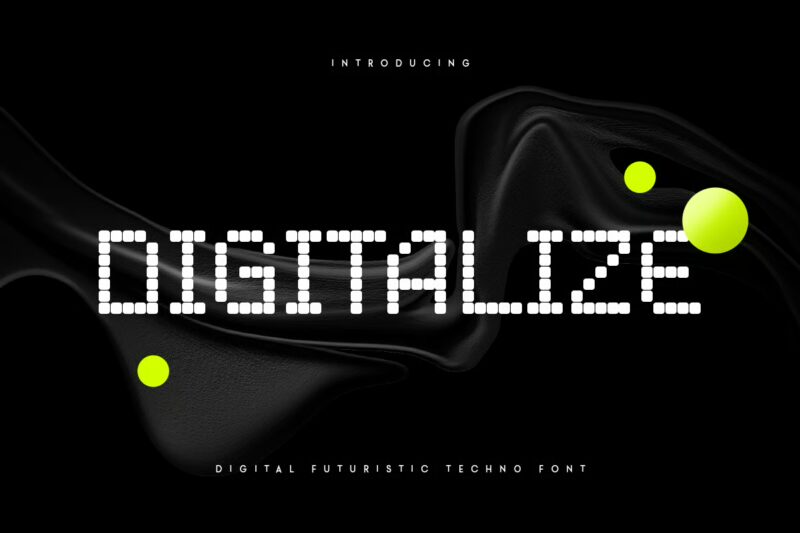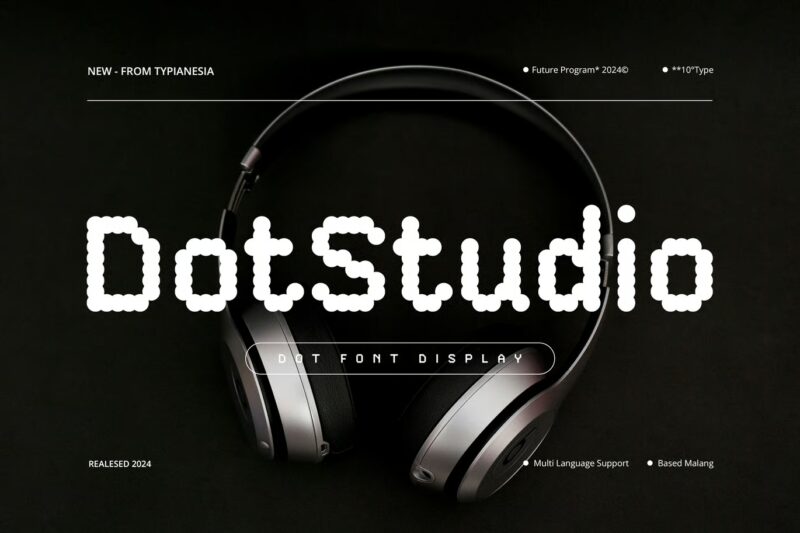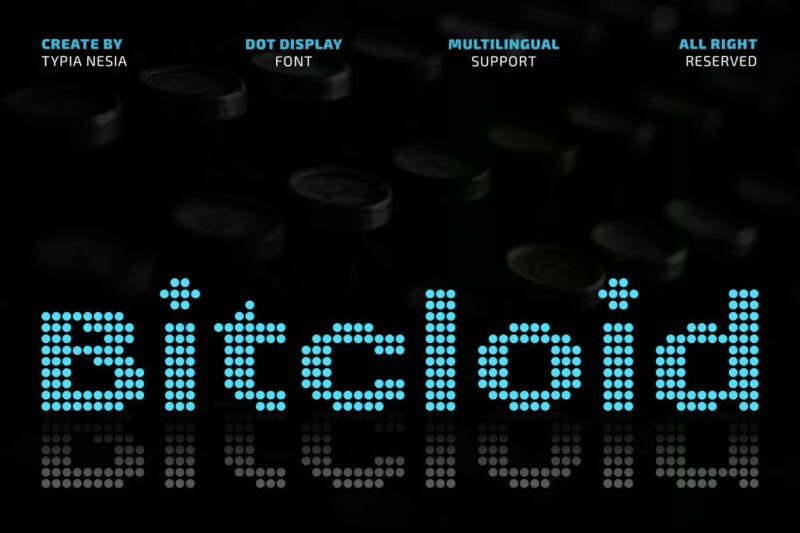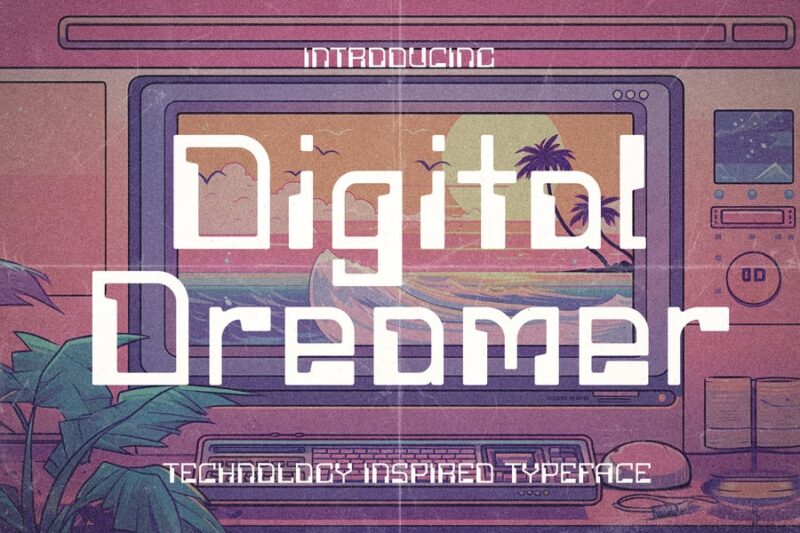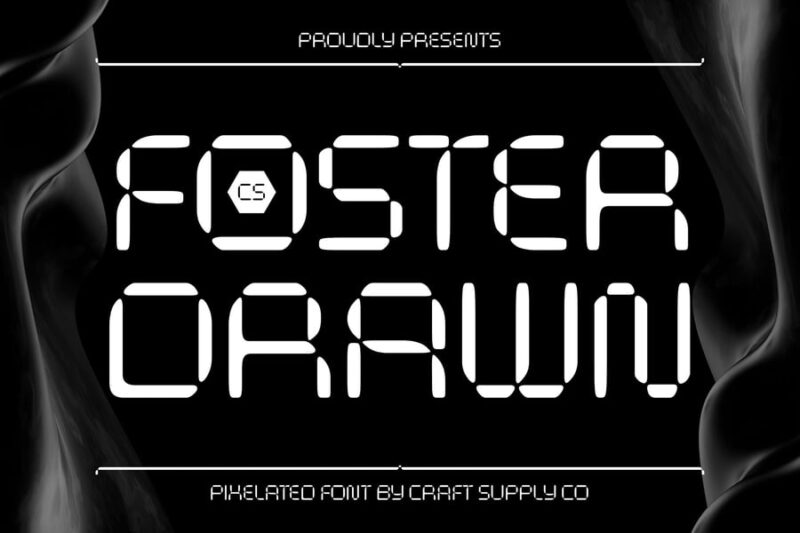
Time is funny that way. We spend so much energy obsessing over what the clock says, yet almost never stop to think about how it says it. Whether it’s the glowing digits on a bedside alarm, the ornate numerals on a grandfather clock, or the bold countdown on a sports broadcast, clock fonts are quietly doing some of the most emotionally loaded typographic work in the world of design.
Think about it: a font on a clock doesn’t just display information — it sets a mood, triggers a memory, and tells you everything about the world that clock belongs to. Sleek and digital? You’re in a sci-fi thriller. Vintage and serif? You’re in a Victorian drawing room. Chunky and distorted? Welcome to a retro arcade.
So set your stopwatch. Let’s get into it.
The Best Clock Fonts in 2026
Not all clock fonts are created equal. Some nail the digital LED look. Others go full gothic grandfather clock. And a handful manage to feel genuinely timeless — no pun intended. Here are our top picks:
Tracker Clock – Precise Quartz Stopwatch Y2k Pixel
This Y2K-inspired pixel font perfectly captures the essence of digital timepieces and stopwatch displays. Tracker Clock delivers precise, geometric letterforms that evoke the nostalgic charm of early 2000s technology. It’s an ideal choice for projects requiring authentic clock fonts that blend retro digital aesthetics with modern design sensibilities.
Speed Px Watch
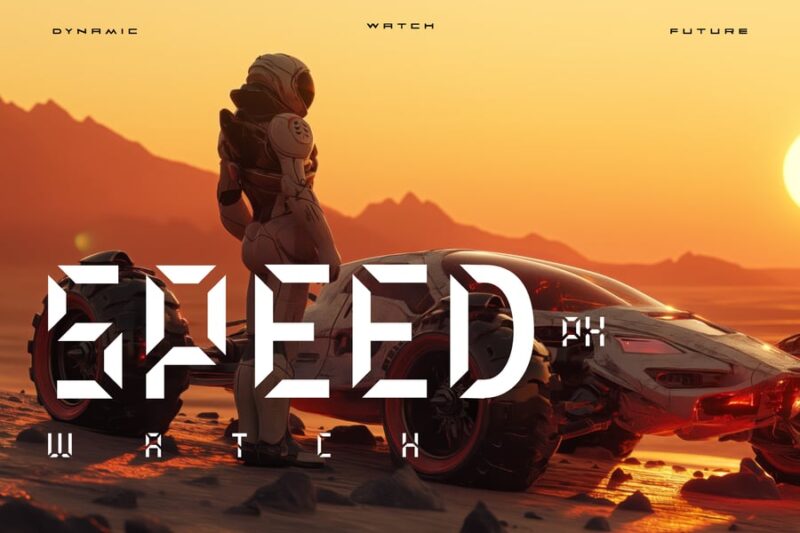
Speed Px Watch delivers the crisp, pixelated appearance of digital watch displays with remarkable accuracy. This clock font specializes in creating that distinctive electronic timepiece aesthetic that’s perfect for gaming interfaces and tech-themed designs. The font’s clean pixel construction ensures excellent legibility across various digital applications.
Digitron Font
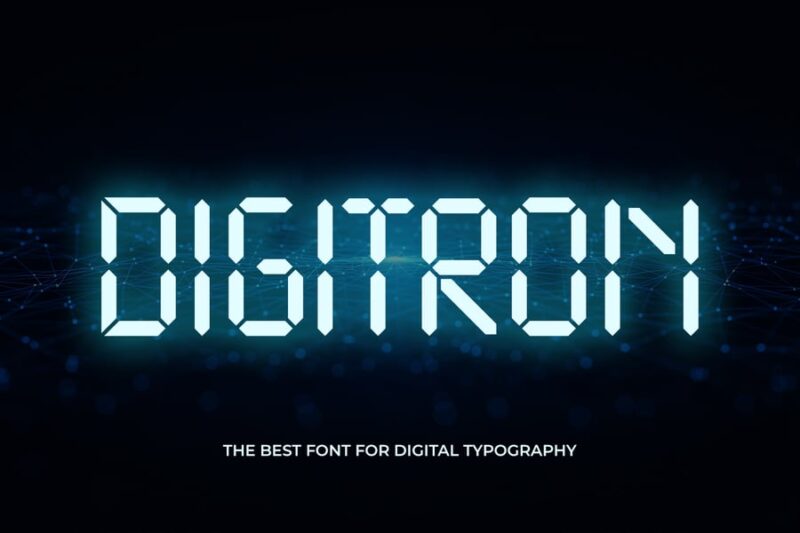
Digitron Font embodies the classic seven-segment LED display style commonly found in digital clocks and electronic devices. This versatile clock font brings authentic digital display characteristics to your designs with its bold, segmented letterforms. Perfect for projects that need to convey precision, technology, or time-related themes.
Date Stamp
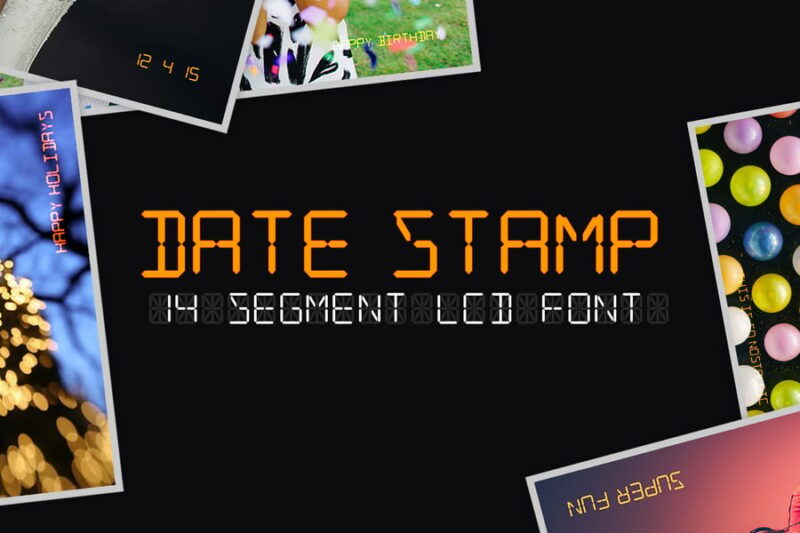
Date Stamp captures the utilitarian aesthetic of time-stamping devices and administrative marking systems. While not exclusively designed as clock fonts, its structured letterforms work excellently for time-related applications and document dating. The font’s industrial character makes it perfect for designs requiring an official, timestamp-like appearance.
Clock Forge – Digital Racing Speed Meter Pixel
Clock Forge combines the precision of digital timepieces with high-speed racing aesthetics in a dynamic pixel format. This specialized font among clock fonts excels in automotive and gaming applications where speed and time measurement are crucial. The racing-inspired design elements make it perfect for dashboard displays, speedometers, and performance-oriented interfaces.
Segmenta – Futuristic Seven Segment Font + Webfont
Segmenta offers a futuristic take on the classic seven-segment display format traditionally used in digital clocks and electronic devices. This modern interpretation of clock fonts brings enhanced readability and contemporary styling to the timeless LED aesthetic. The included webfont version ensures seamless integration across digital platforms and responsive designs.
Tiny Timmy
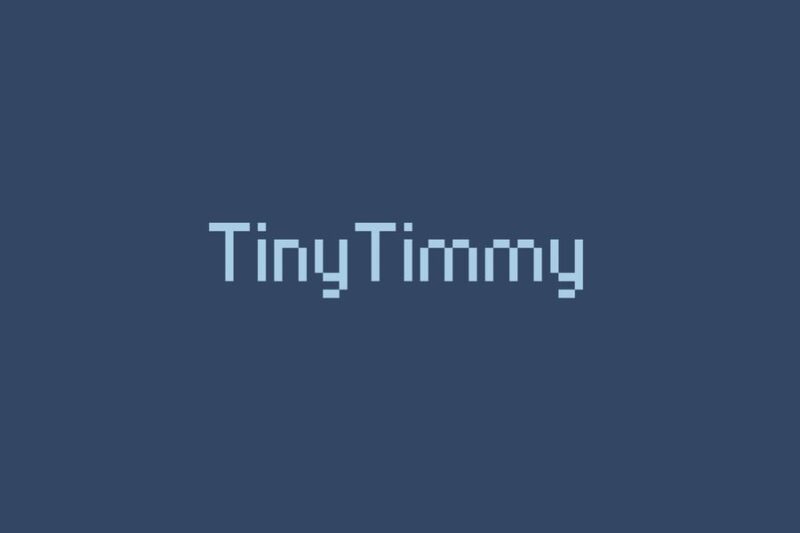
Tiny Timmy delivers compact, pixel-perfect letterforms that excel in space-constrained digital environments like watch faces and small displays. This efficient clock font maintains excellent legibility even at minimal sizes, making it ideal for wearable technology and compact interface design. Its playful name belies its professional utility in time-sensitive applications.
Cyber Digital LED-Inspired Font
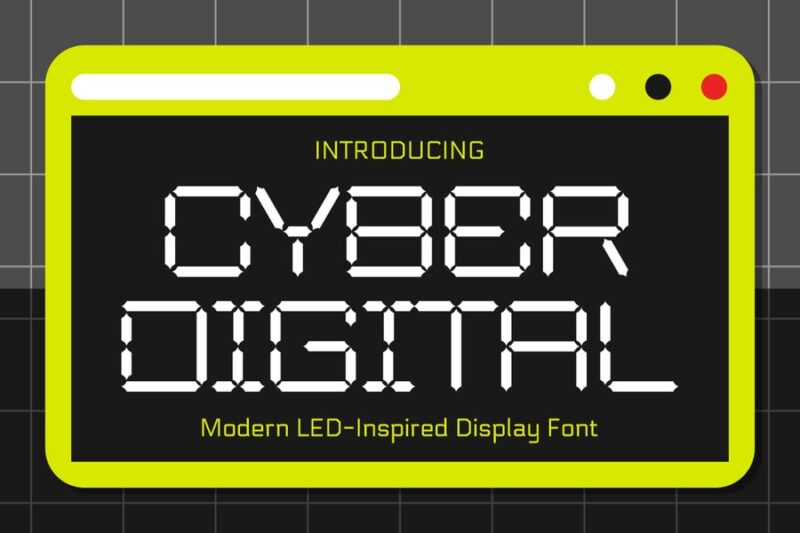
This LED-inspired font brings authentic digital display aesthetics to cyberpunk and futuristic design projects. While primarily a digital typeface, it works exceptionally well as part of clock fonts collections for sci-fi themed timepieces and electronic interfaces. The cyber aesthetic makes it perfect for gaming, technology, and futuristic branding applications.
So the next time you reach for a clock font — whether it’s for a countdown timer, a watch face, a retro poster, or a sci-fi UI — take a moment to think about what that font is actually saying. Because in typography, as in life, timing is everything.